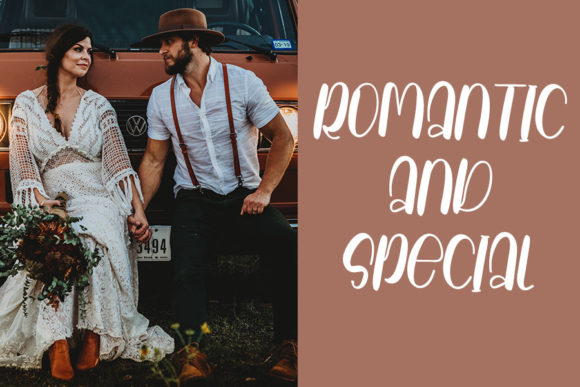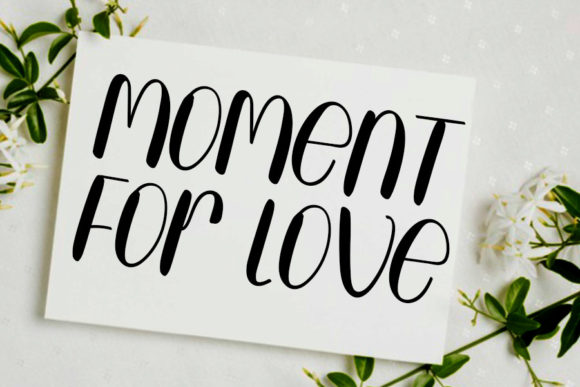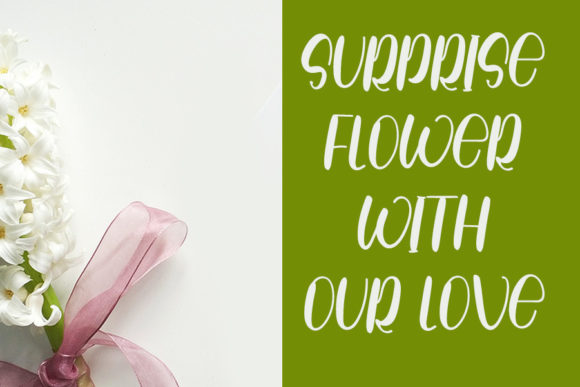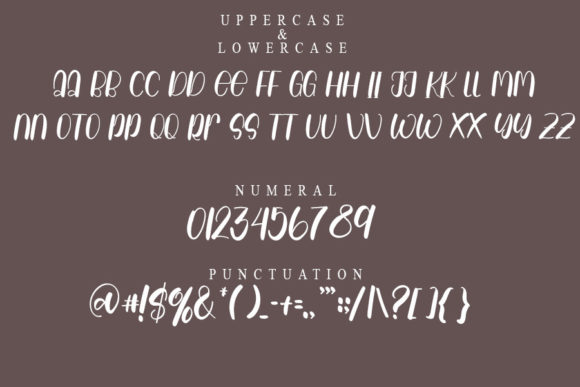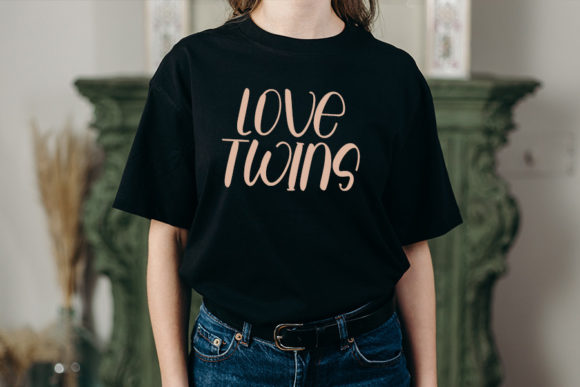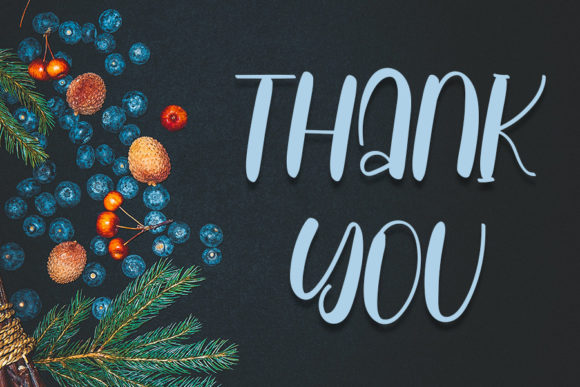
Introduction to Lets Get Married Font
As designers, we’ve all been there – staring at a blank canvas, trying to bring our creative vision to life. The perfect font can be the spark that sets off a chain reaction of inspiration, guiding our design decisions and elevating our work to the next level. For those seeking a unique touch, the Lets Get Married Font is an exceptional choice.
This charming handwritten font is not just a pretty face; it’s a high-quality design resource that can add a personal, whimsical feel to any project. With its transparent background, it’s the perfect complement to any image or graphic, allowing your creative vision to shine through.
Key Features of Lets Get Married Font
- High-quality design: The Lets Get Married Font is a beautifully crafted font, perfect for creative projects that require a touch of elegance and sophistication.
- Perfect for wedding design: The Lets Get Married Font is specifically designed for wedding-related projects, making it a great resource for designers working on wedding invitations, programs, and other materials.
Honest Review: Lets Get Married Font
One of the standout features of this font is its transparent background, which makes it incredibly versatile and easy to work with. I was able to seamlessly integrate it into my design without any issues. ✨ The font itself is clean, modern, and perfect for any wedding or love-themed project.
- High-quality design: The font is crisp and clear, making it perfect for print or digital use.
One potential limitation is that the font may not be suitable for all types of projects. ⚠️ For example, it may not be the best choice for a formal or traditional design. However, for a creative project like a wedding invitation or love-themed poster, it’s perfect.
The Lets Get Married Font is commonly used for wedding-related designs, such as invitations, save-the-dates, and thank-you cards. It’s also a popular choice for other creative projects, such as baby shower invitations, engagement announcements, and anniversary cards.